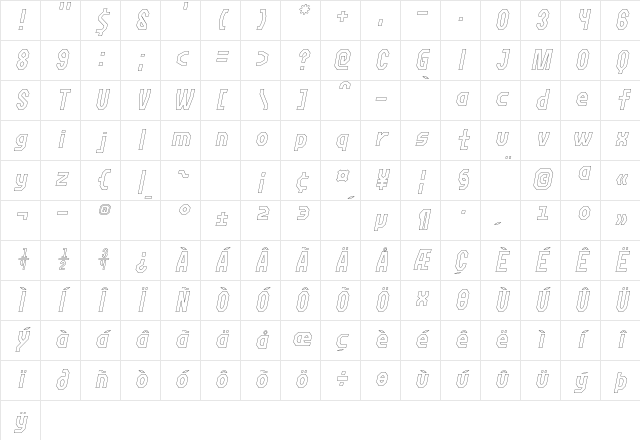
Fortzilla Light Italic
Design Context for Fortzilla Light
Fortzilla Light is a composed and adaptable typeface that performs quietly and consistently across a wide range of design contexts. The slanted form adds forward momentum and visual energy. Its slender proportions lend an understated elegance to any composition.
Pro Tip: Use Fortzilla Light for emphasis, pull quotes, and subheadings where its slanted energy can add rhythm to the layout.